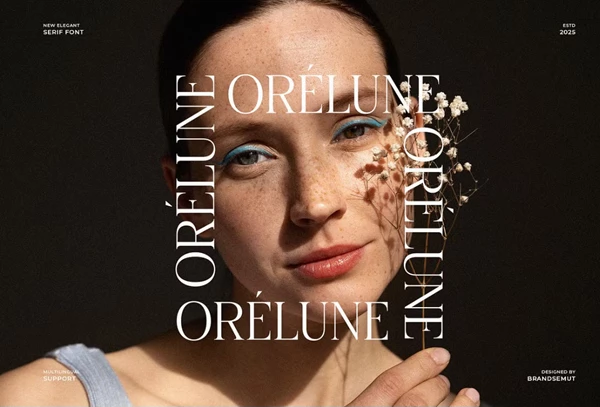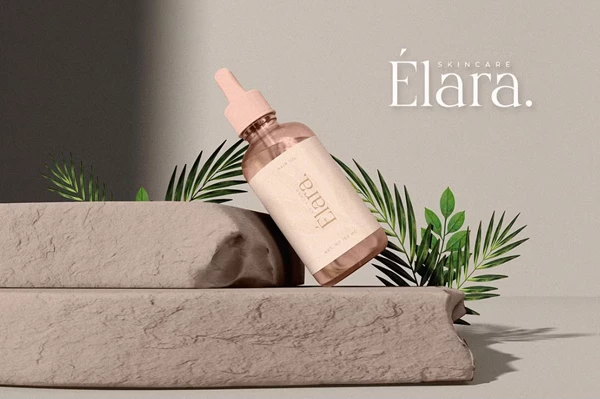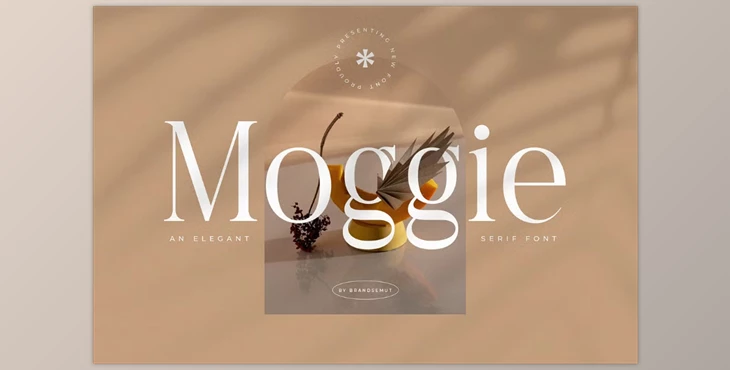
Moggie - Elegant Modern Serif Font:
Moggie is a modern serif typeface with a clean yet classy appearance. Moggie features a harmonious uppercase and lowercase font, including a series of thin strokes paired with rounded curves, conveying a softly assured nature perfect for cosmetics, magazine titles, and upscale logos/packaging. Designed to convey sophistication and warmth across print and digital platforms, Moggie is the ideal font for anyone looking for a softly minimalistic approach to anything with a highly classy touch.
Some great features of Moggie - Elegant Modern Serif Font:
- Upper and lowercase letters
- Serifs align with a modern, feminine look
- Elegant ligatures and rounded endings
- multilingual options